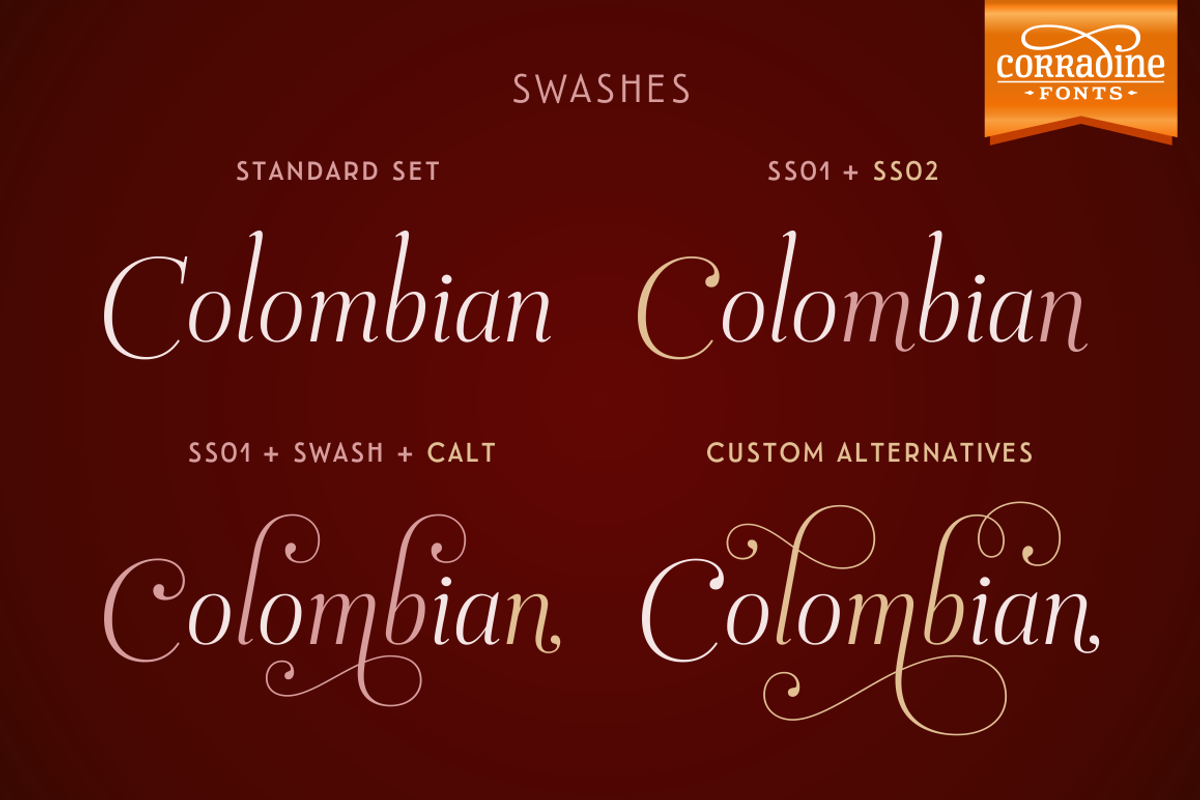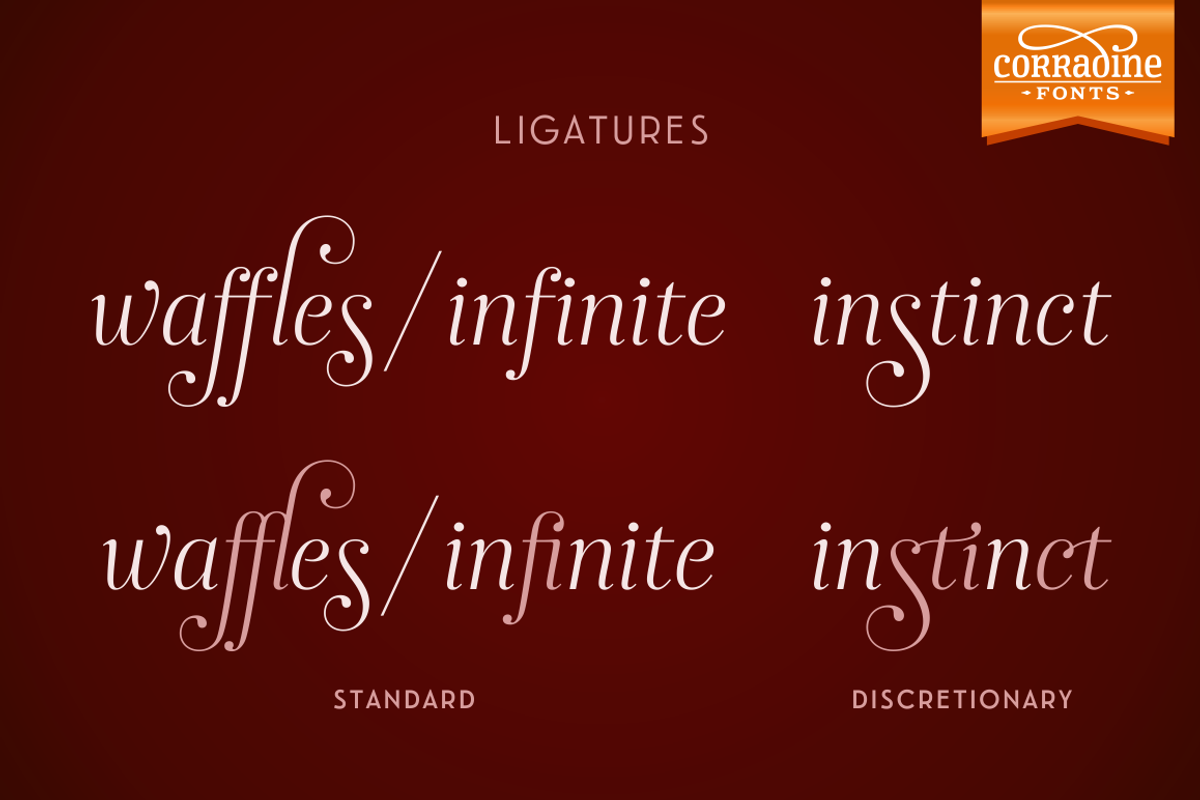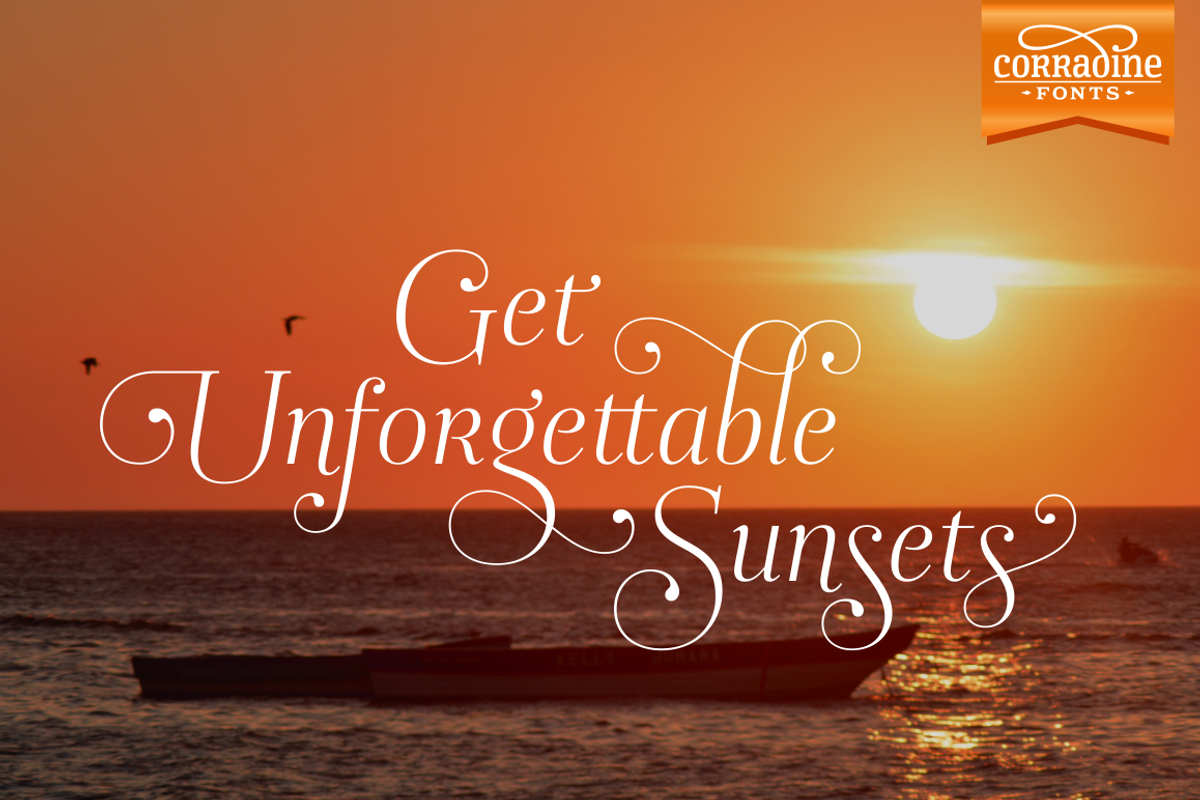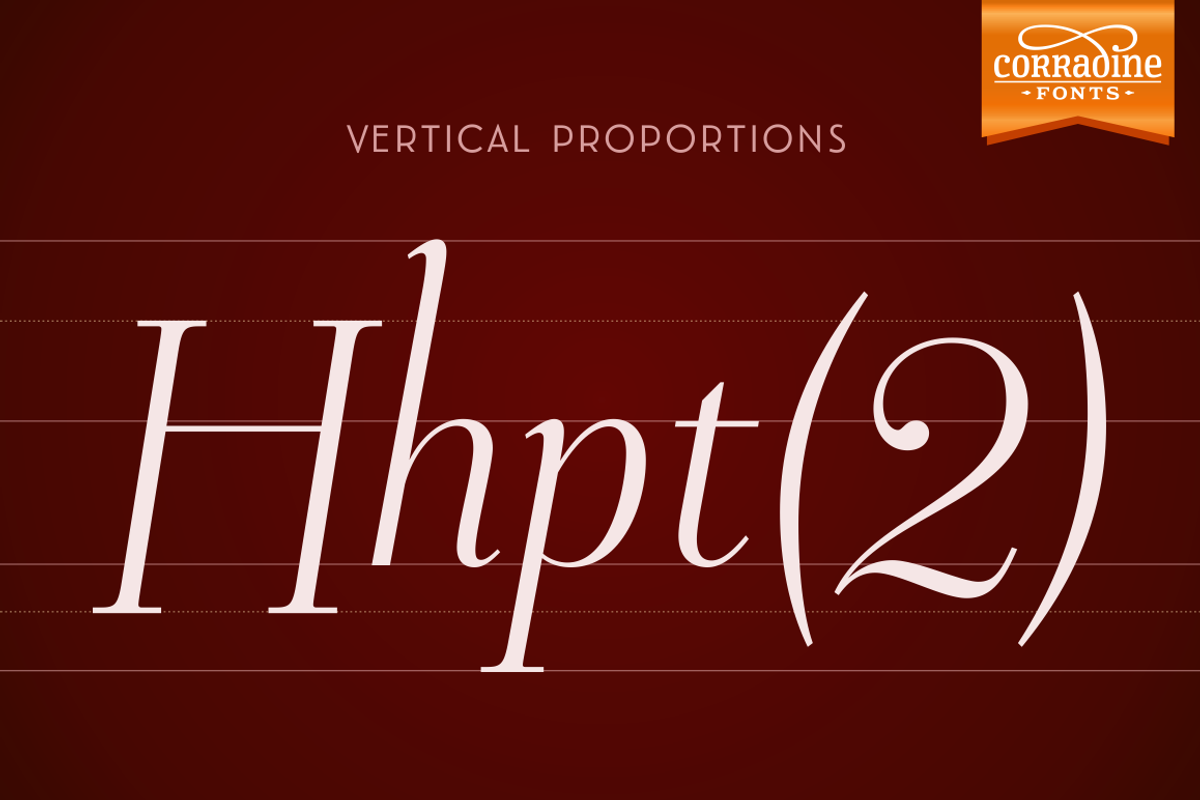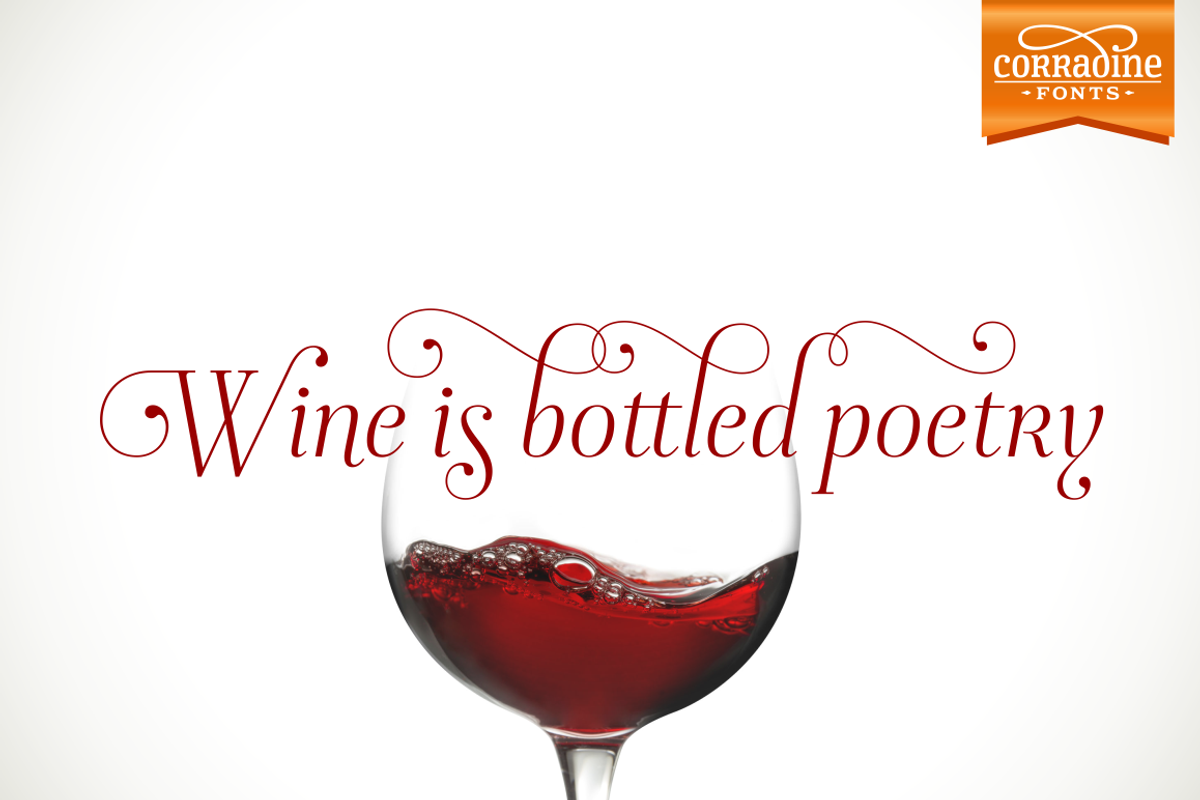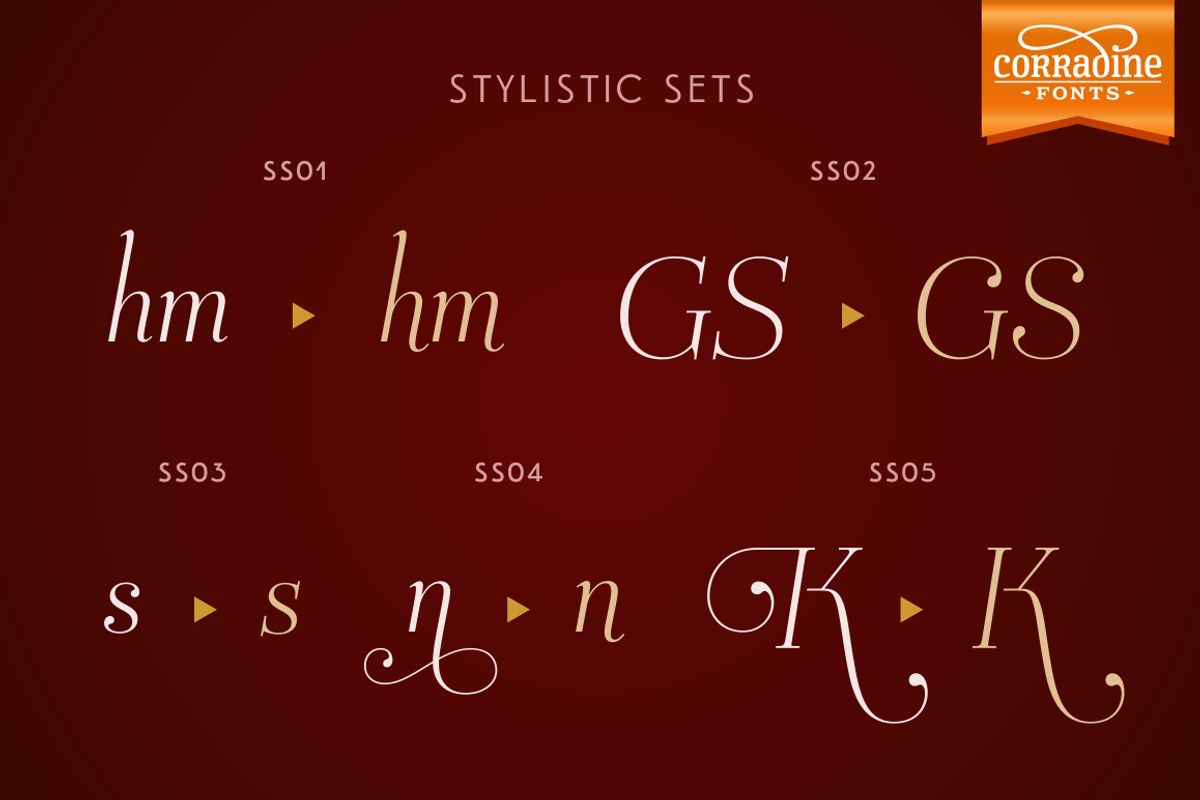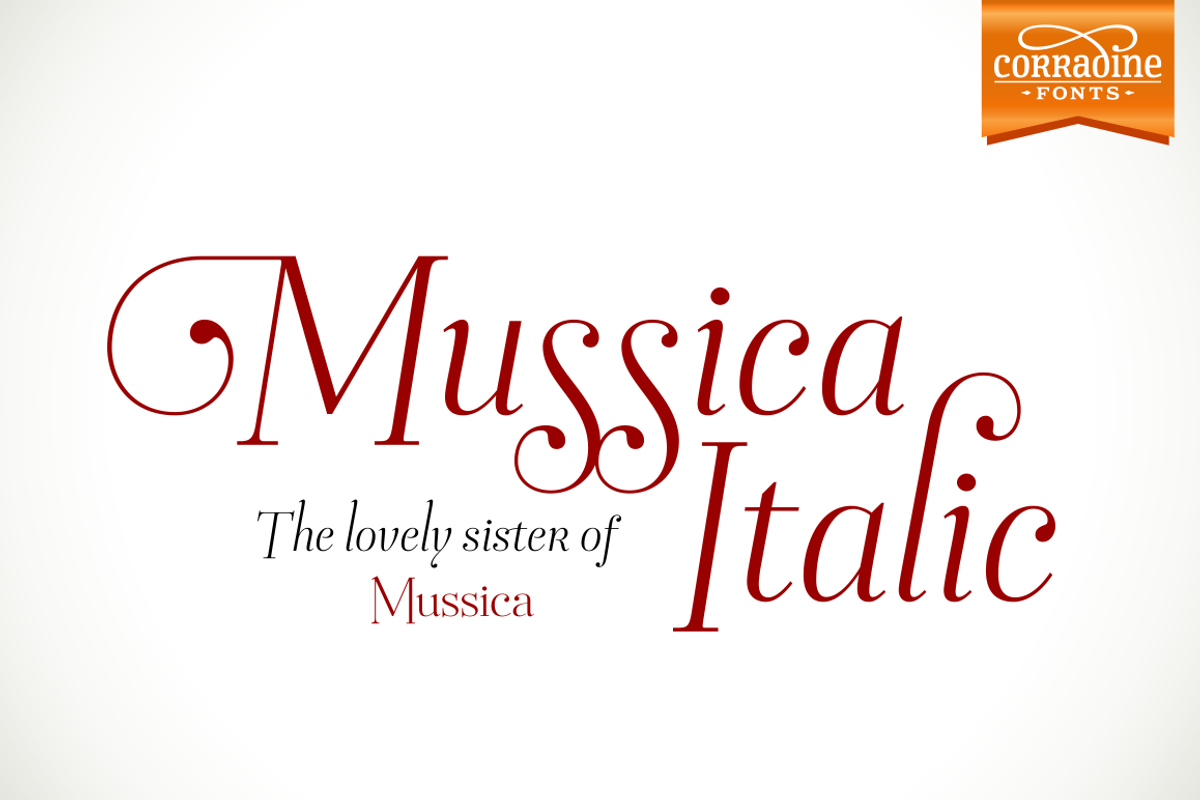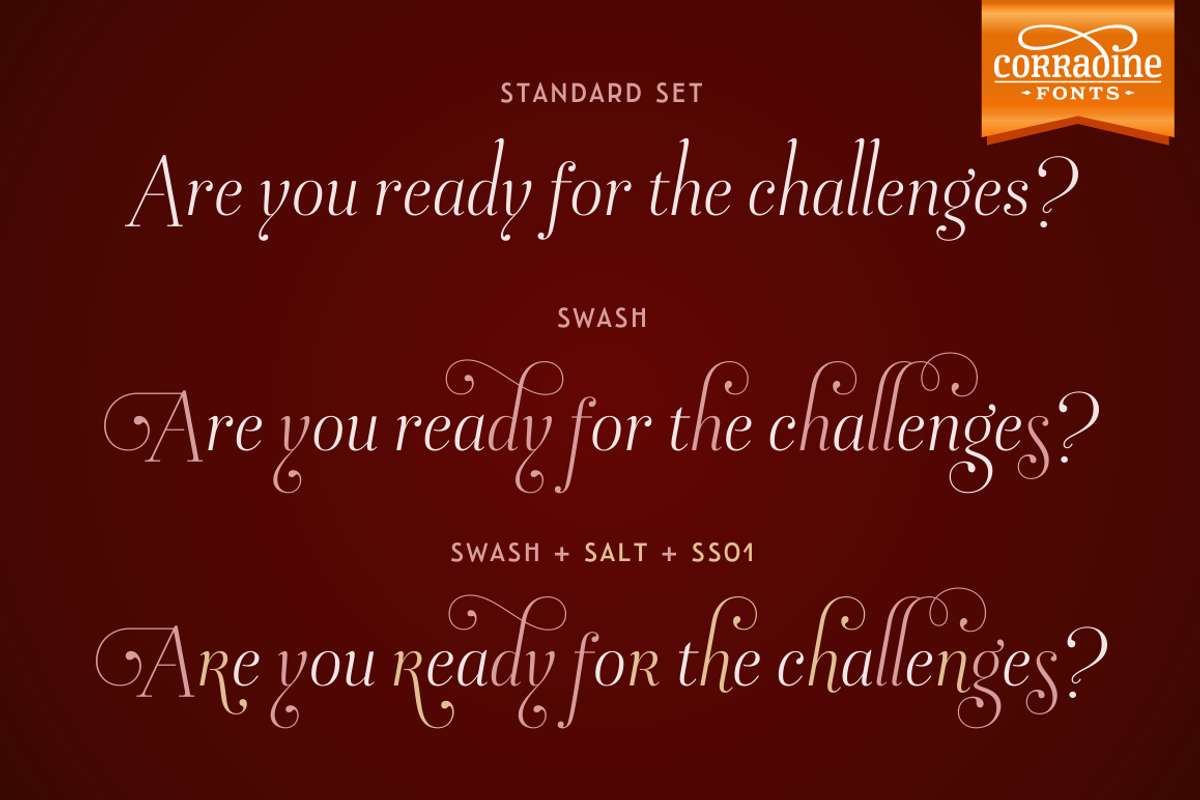
Mussica Italic
In 2009, Corradine Fonts released one of its most successful projects: Mussica, an experimental and hybrid typeface that explore the exaggeration of ascenders and descenders in a high contrast style. Now, around eight years later, we are proud to introduce Mussica Italic, which surpass the original version in quality and quantity of ornamental possibilities while try to maintain its proportions and looking. Mussica Italic is programmed to obtain a smart replacement of swashes, endings and ligatures using the Open Type features, but you can also explore manually its wide range of alternatives to get the best graphic result according to your requirements.
- Mussica Italic is programmed to obtain a smart replacement of swashes, endings and ligatures using the Open Type features, but you can also